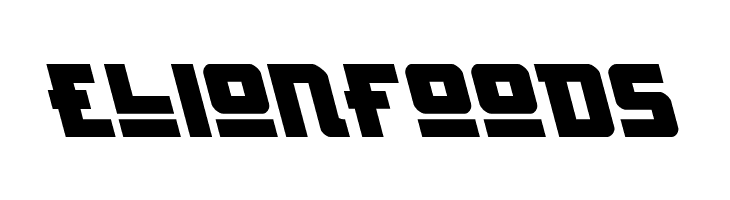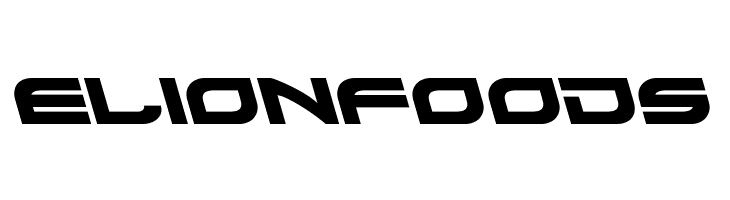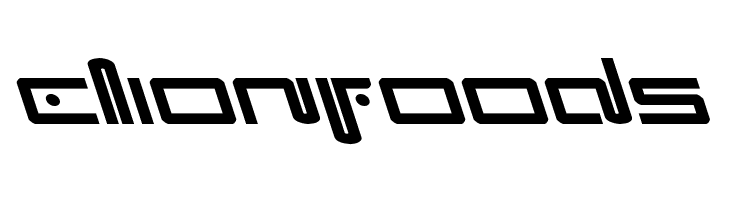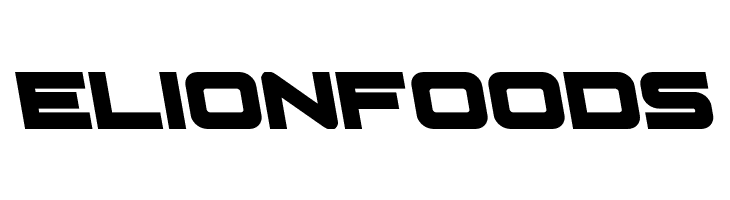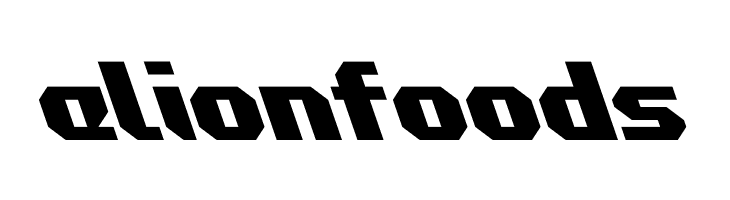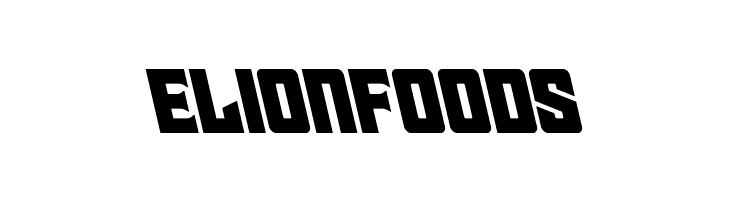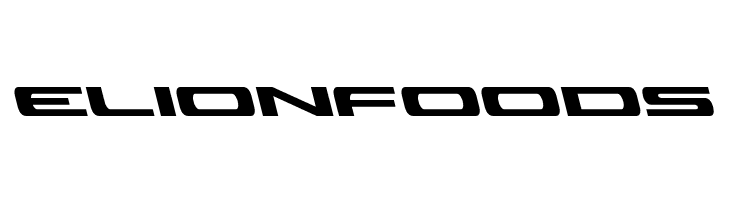
A bold, angular, and futuristic font with a leftward slant.
A bold, futuristic font with angular, geometric characters.
A futuristic, angular font with bold geometric shapes.
A bold, futuristic font with geometric, slanted characters.
A bold, futuristic font with angular shapes and a leftward slant.
A bold, futuristic font with angular strokes and a leftward slant.
A bold, angular font with a geometric and dynamic style.
A bold, left-leaning geometric font with a dynamic and energetic style.
A bold, slanted font with a futuristic and dynamic style.